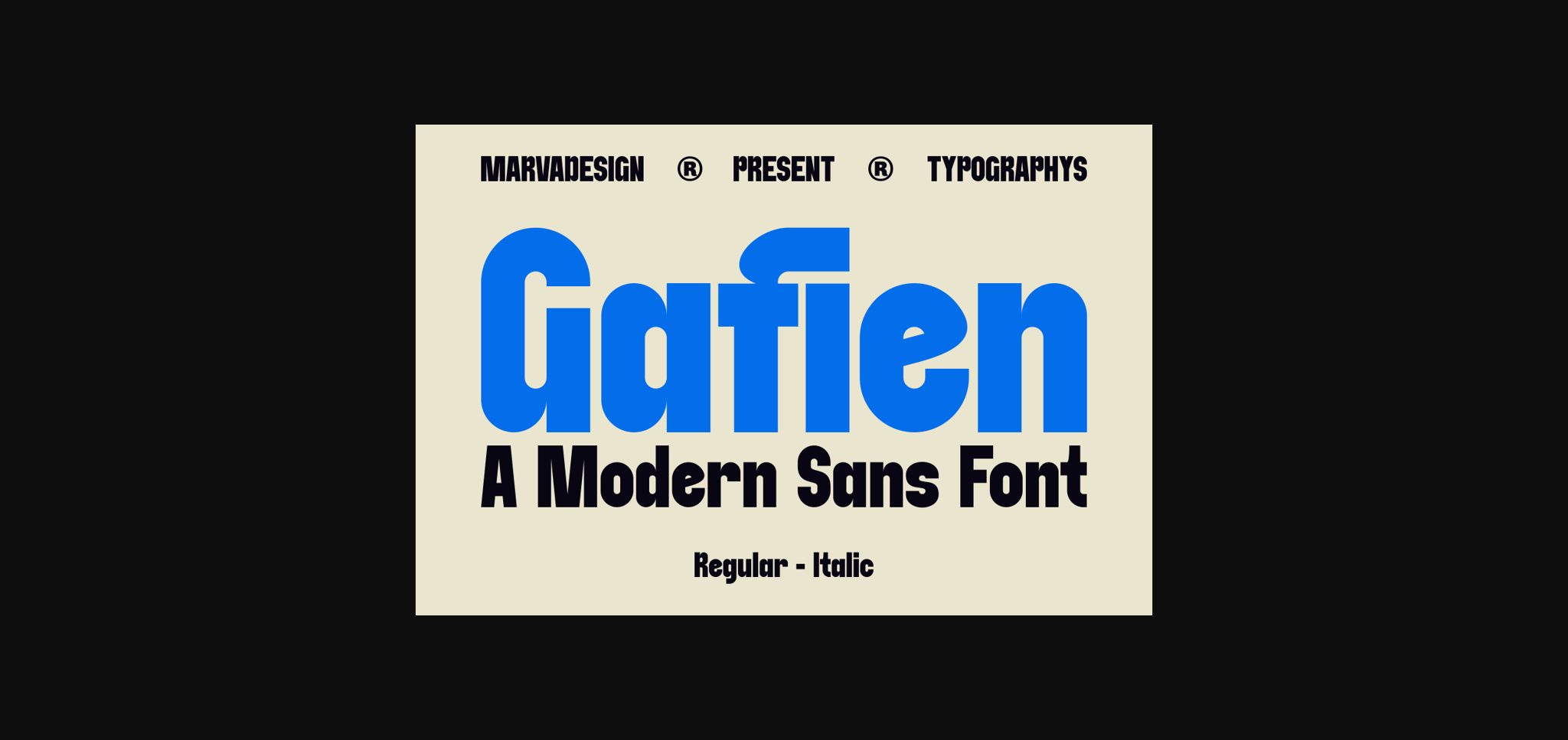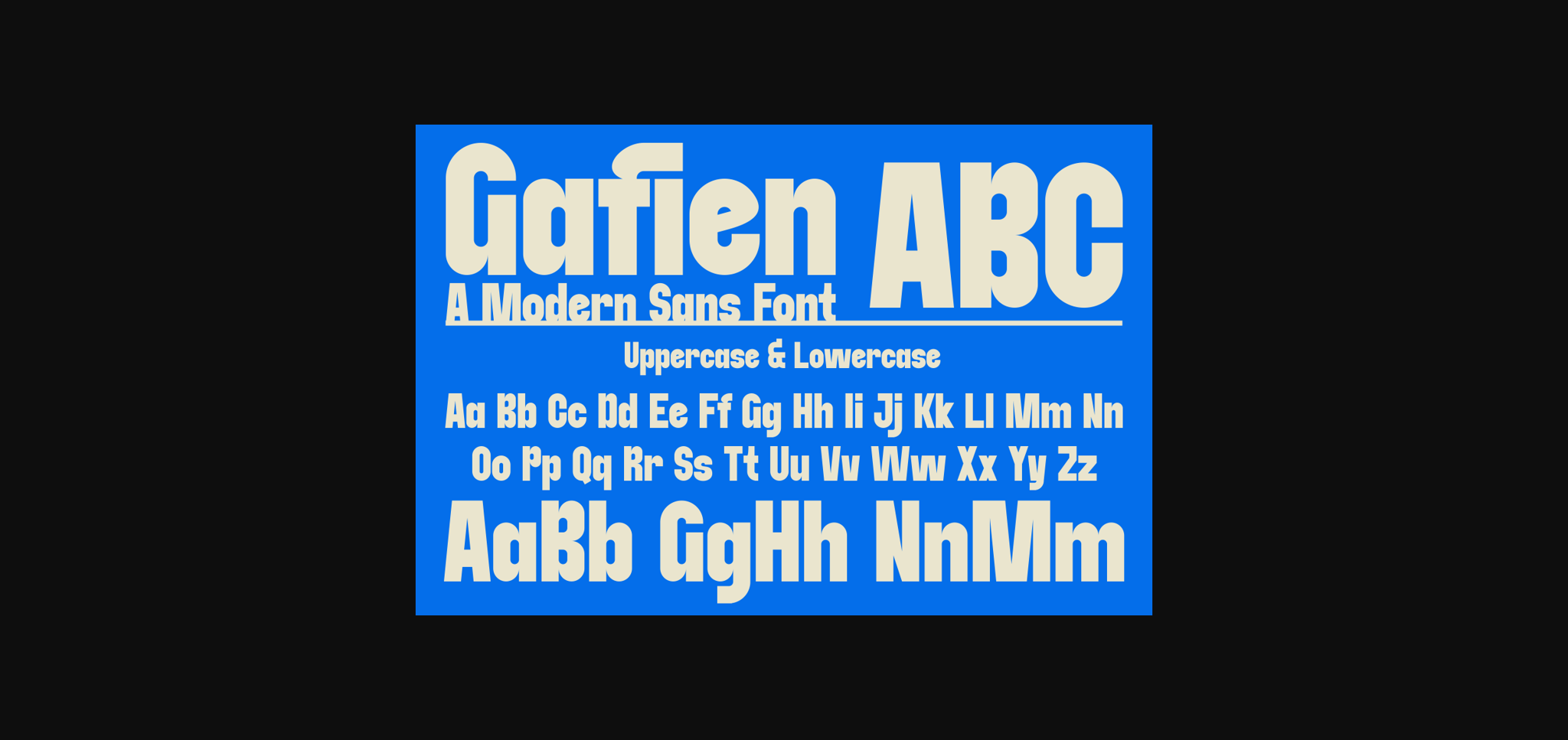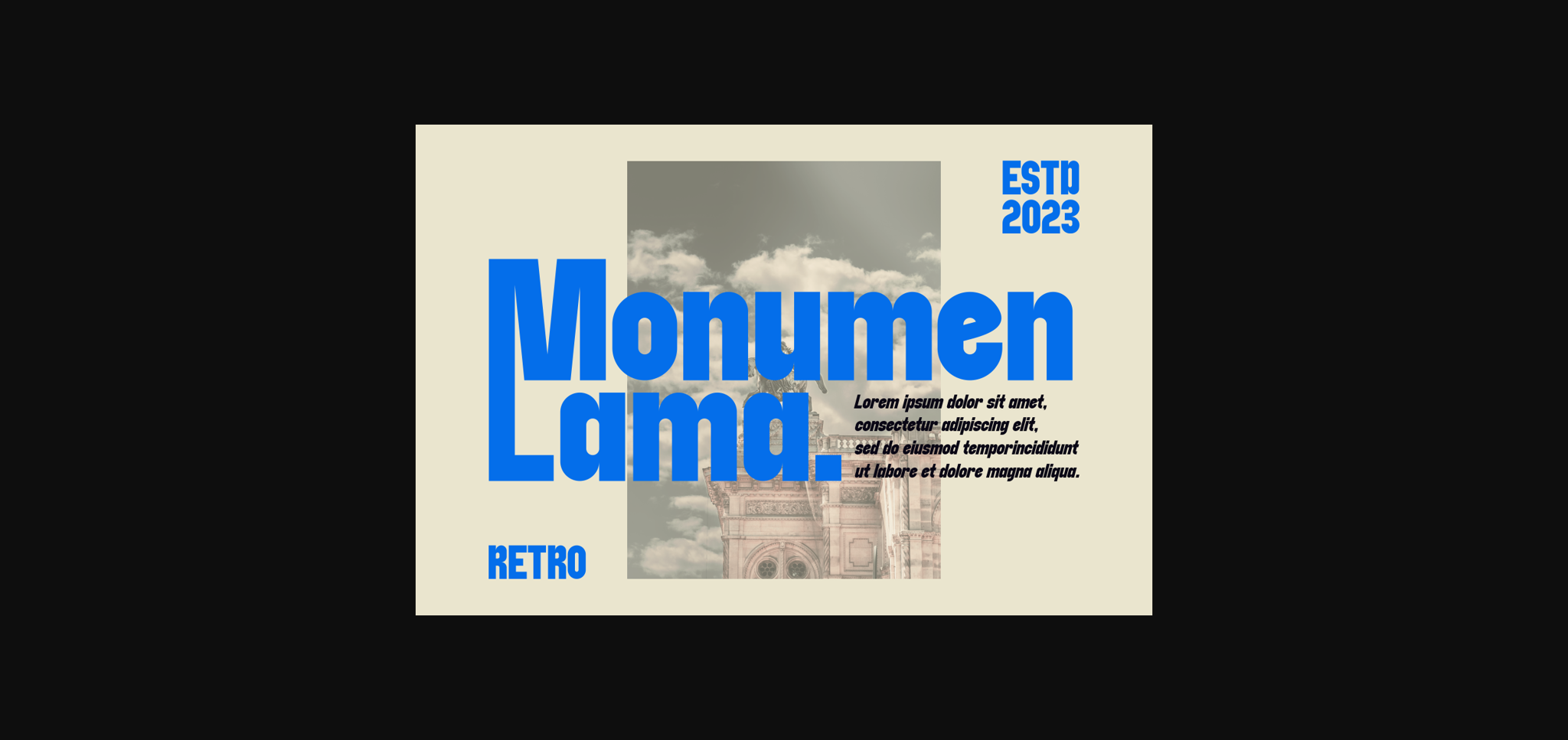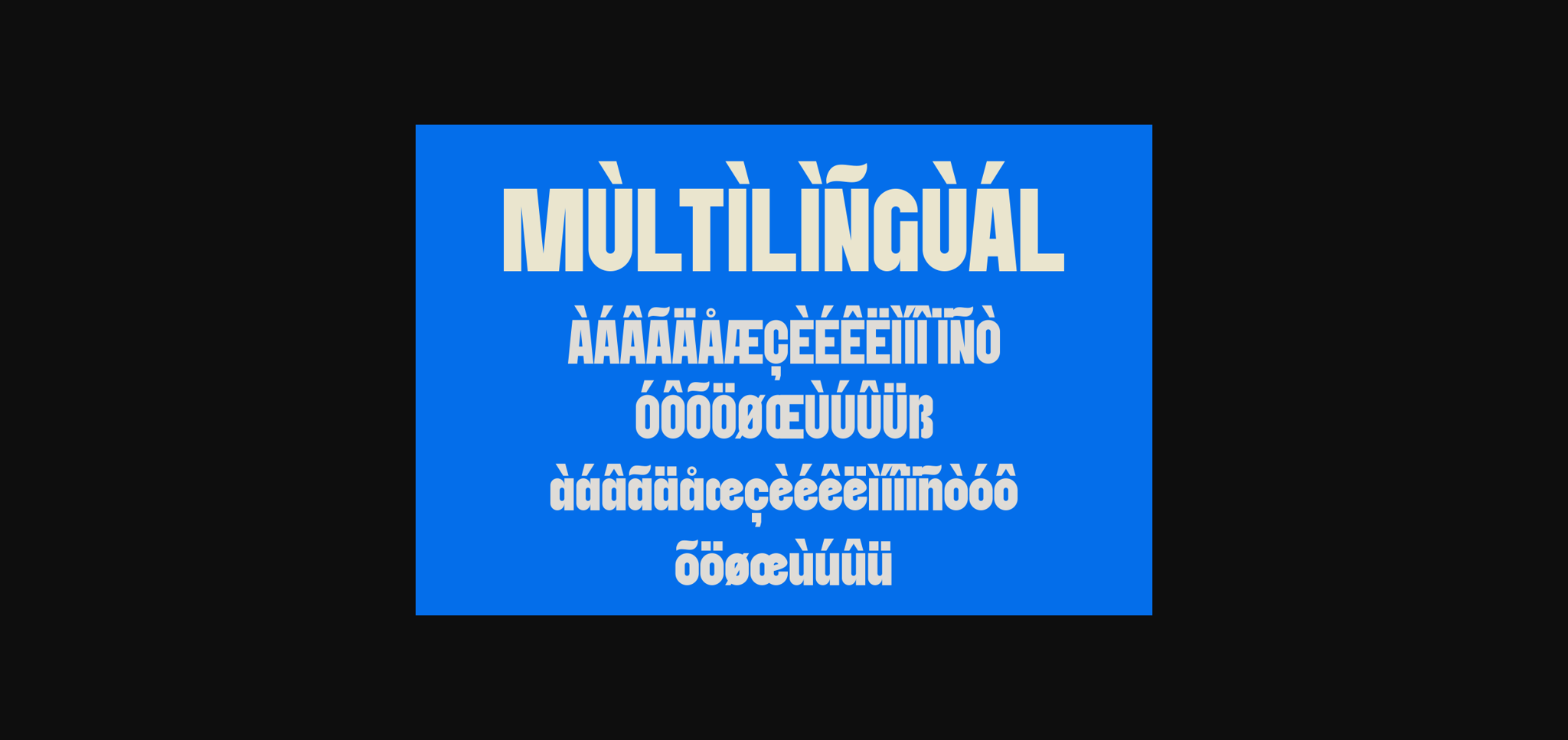
About Gafien Font
Introducing our new product **Gafien Font** – Modern Font
Gafien Font** – Modern Font is a bold and authentic display font. The font is suitable for any branding project like logo, Template Product and many more. outstanding in a wide range of contexts.